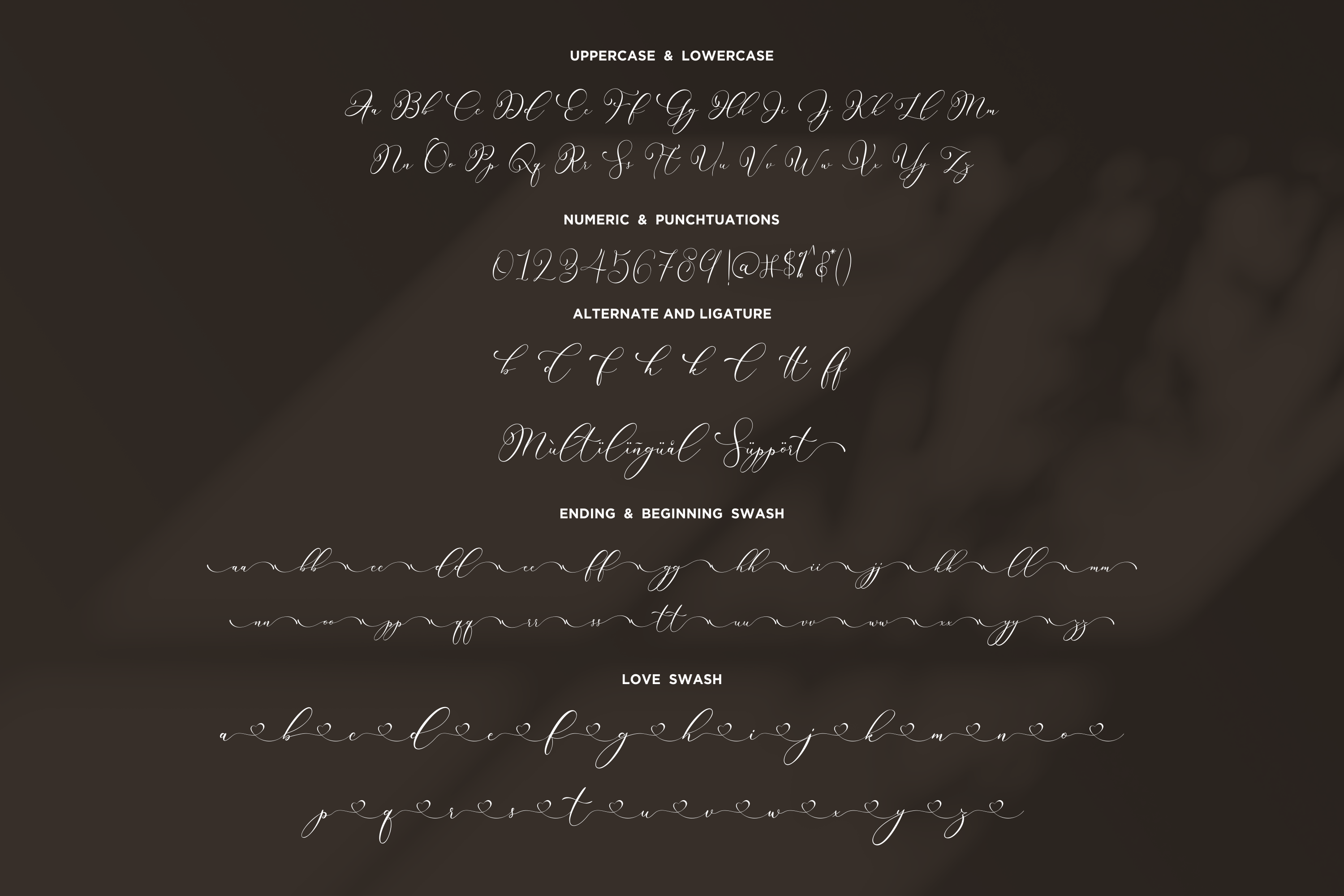
Rintica Font
Rintica Font Is a Lovely Script Font With Swash and Ligature More Than 50 Stylish love Alternate Rintica is perfect for product packaging, branding project, megazine, social media, wedding, or just used to express words above the background.